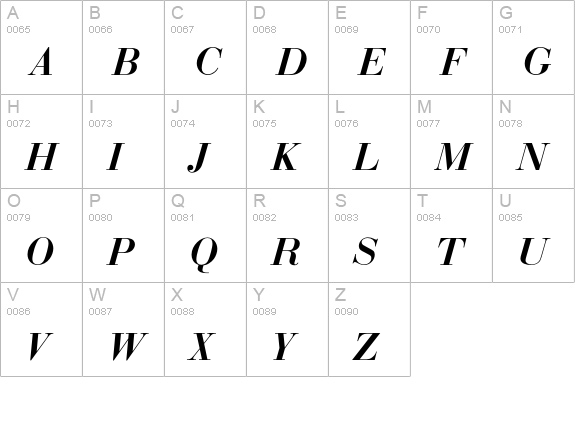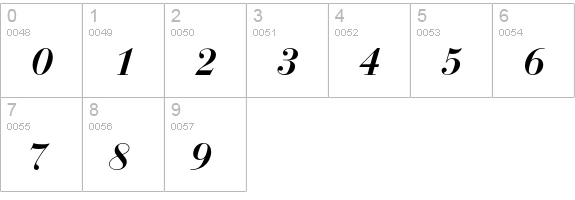
BauerBodoniEF-MediumItalic Font Details
BauerBodoniEF-MediumItalic is a timeless and elegant font that exudes sophistication and class. Its stylish italic design adds a touch of flair and creativity to any project, making it perfect for conveying a sense of luxury and refinement. The smooth curves and delicate serifs of BauerBodoniEF-MediumItalic make it a versatile choice for a wide range of design applications, from branding to editorial layouts. The best part is that BauerBodoniEF-MediumItalic is available for free download at FontsMarket.com. This means you can easily access this high-quality font and incorporate it into your design projects without any cost. Whether you're working on a print advertisement, website design, or any other creative endeavor, BauerBodoniEF-MediumItalic will elevate your work with its classic charm and modern appeal. Download this exquisite font today and take your designs to the next level!